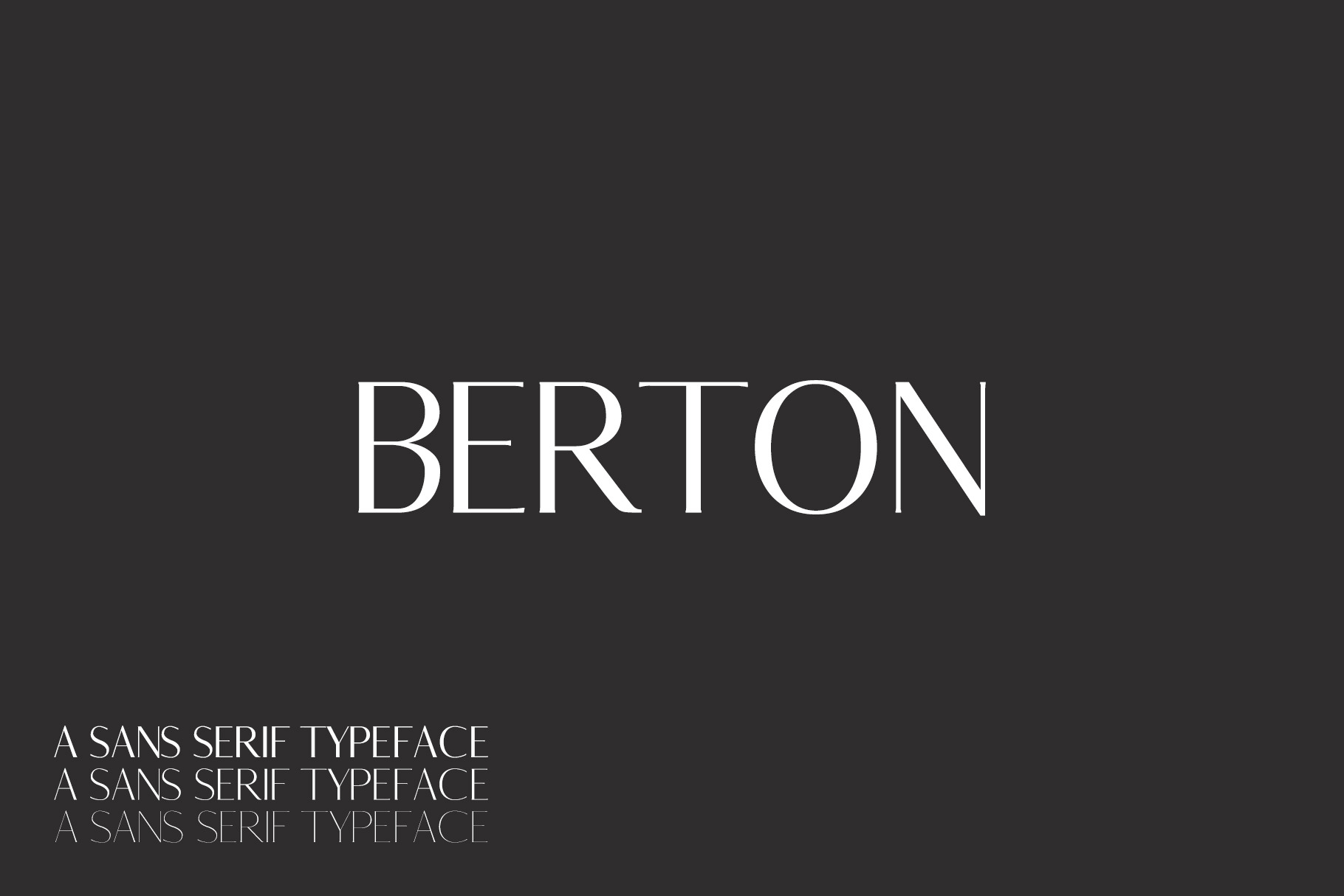
Berton Sans Serif 3 Font Family Pack
Berton Sans Serif Font is a set of 3 weights font family. It is good for making creative templates and stationary. Berton typeface suits best for modern / clean designs, logos, headlines, banners and templates etc. It looks gorgeous in all caps with a wide-set spacing if you want to try a classy look, or beautiful on its own in capital and lowercase letters for something completely timeless.
- Regular, Thin, Light Weights
Highlights
- Berton is a highly versatile Font Family Pack.
- Includes 3 weights
- The perfect choice for Modern, Fashion & Magazine Titles.
- Great for use on quotes, short phrases, magazines, logotypes and all sorts of advertising.